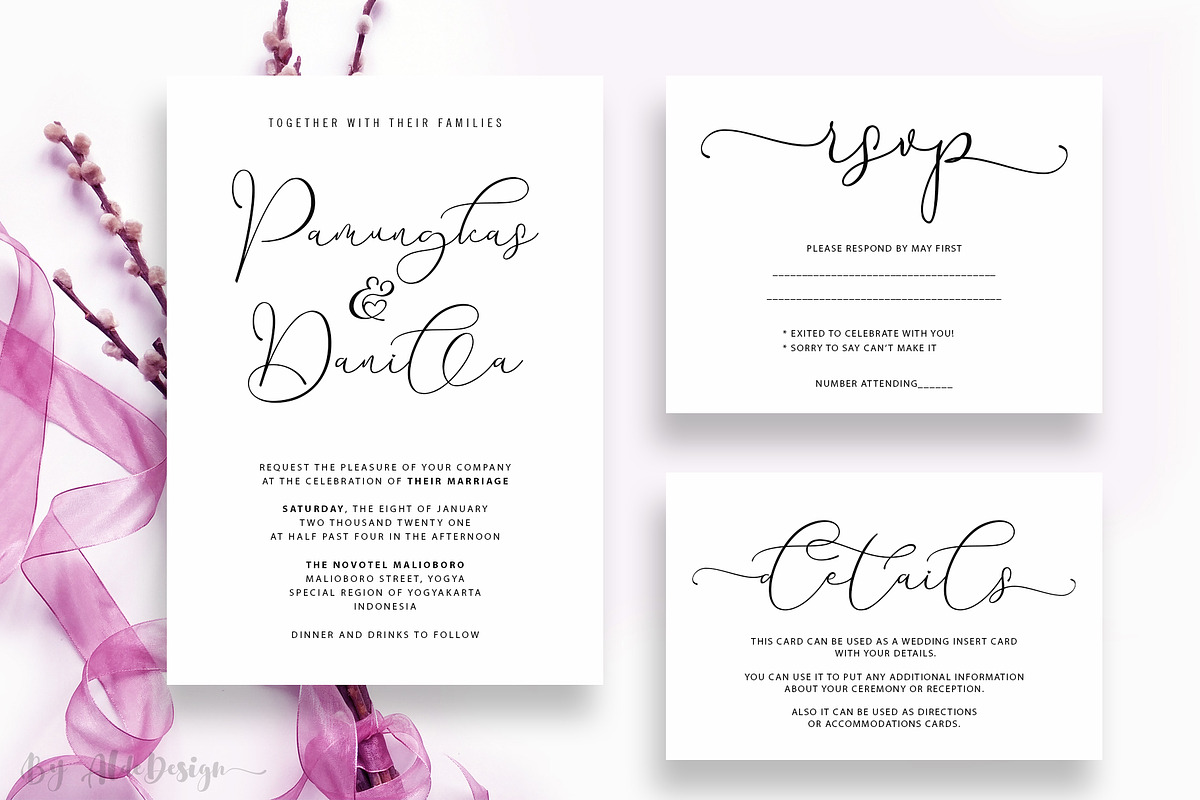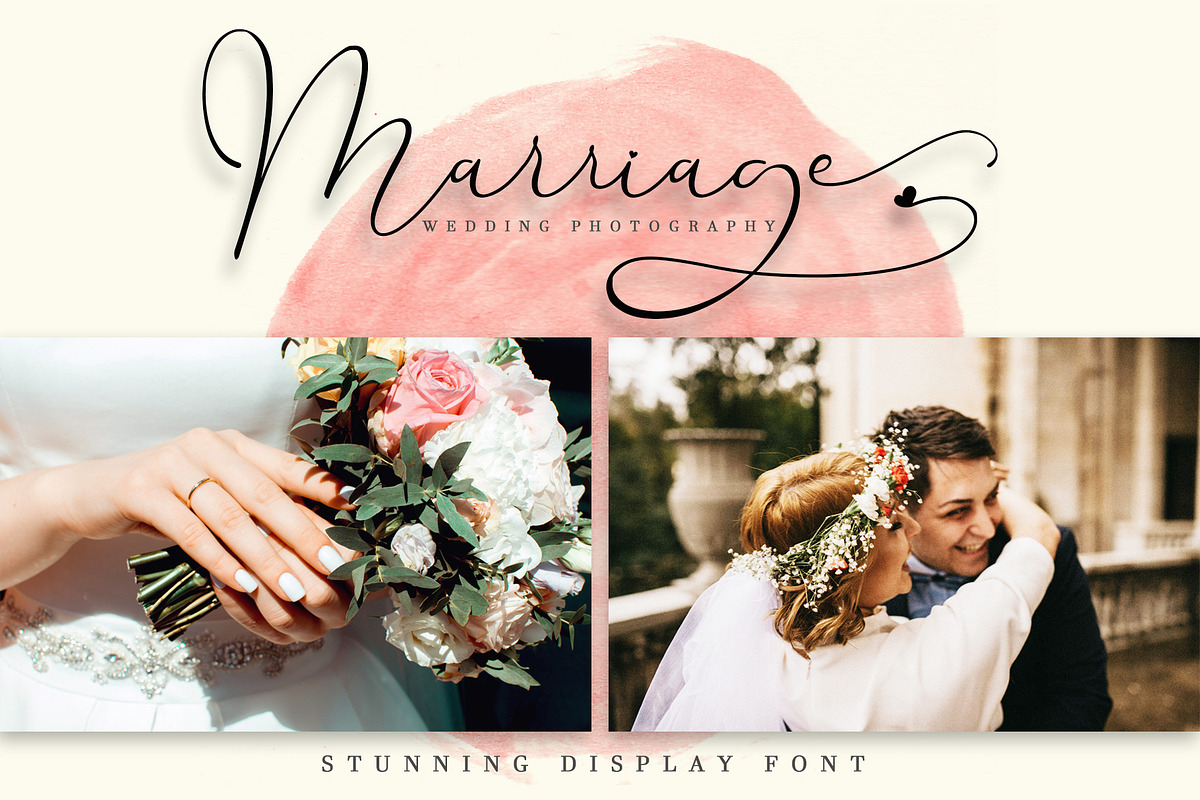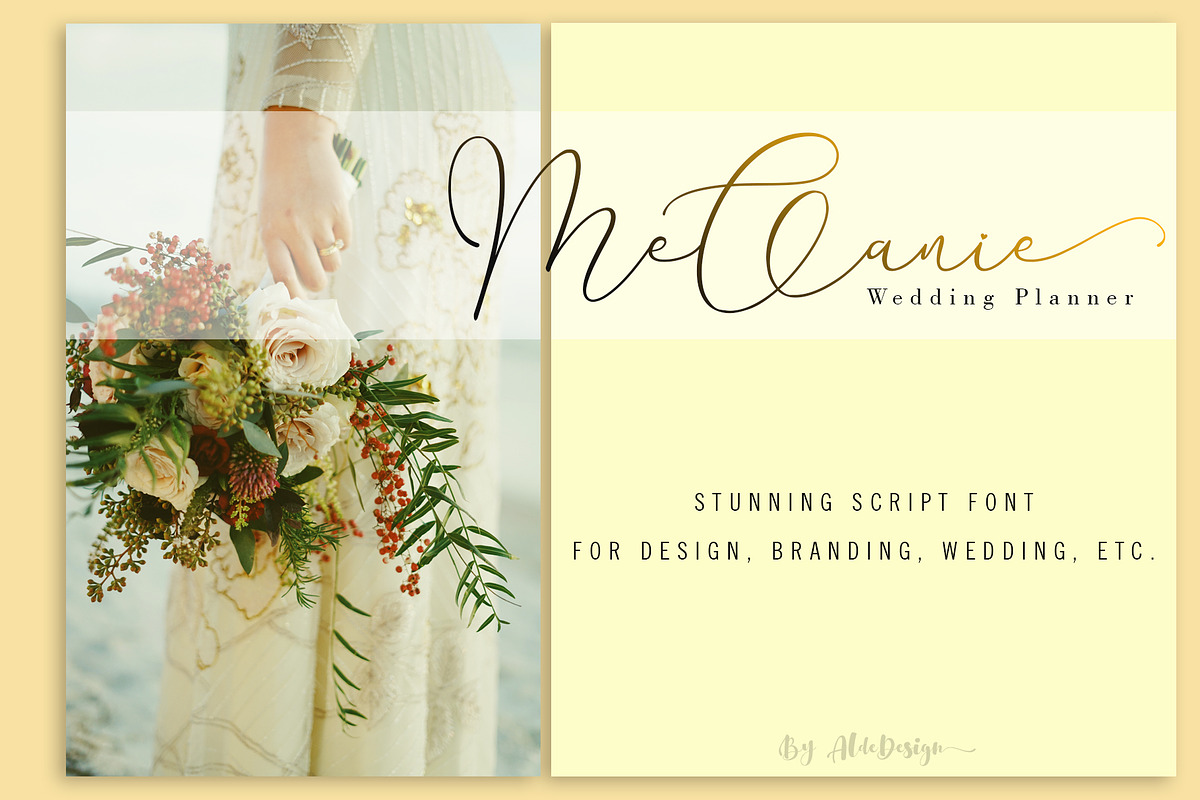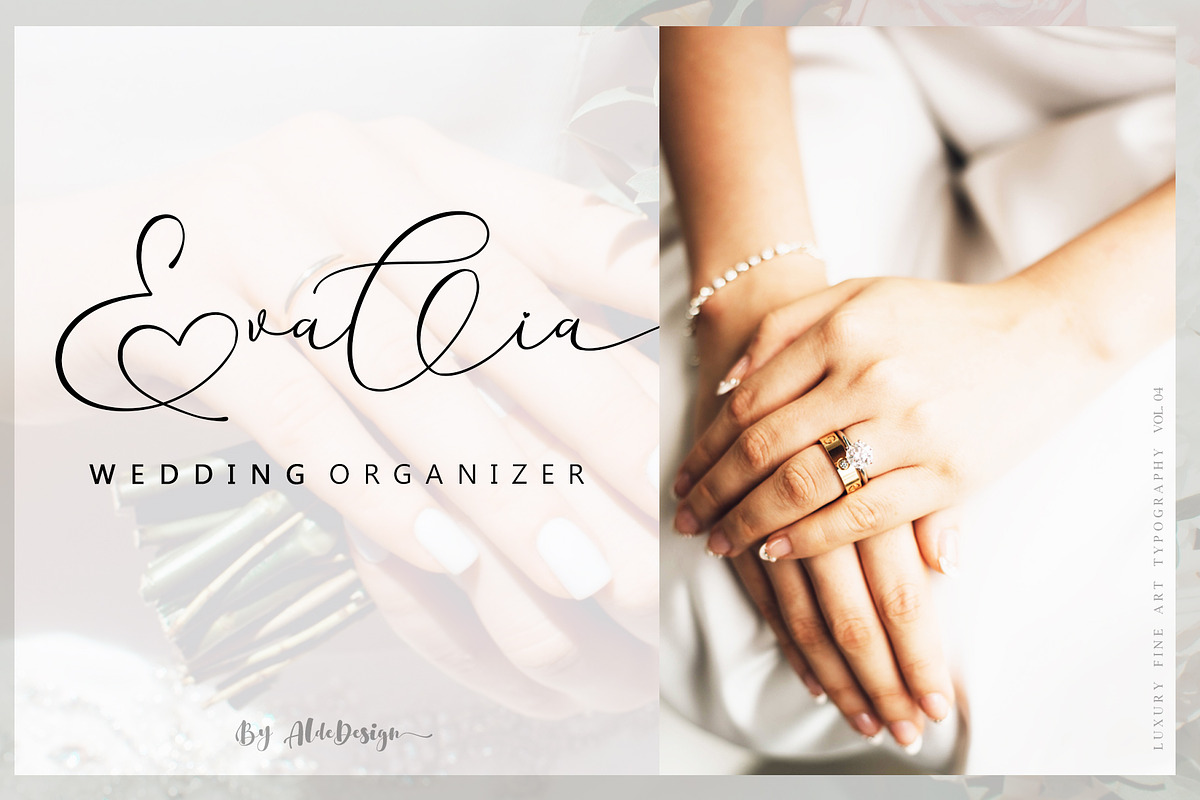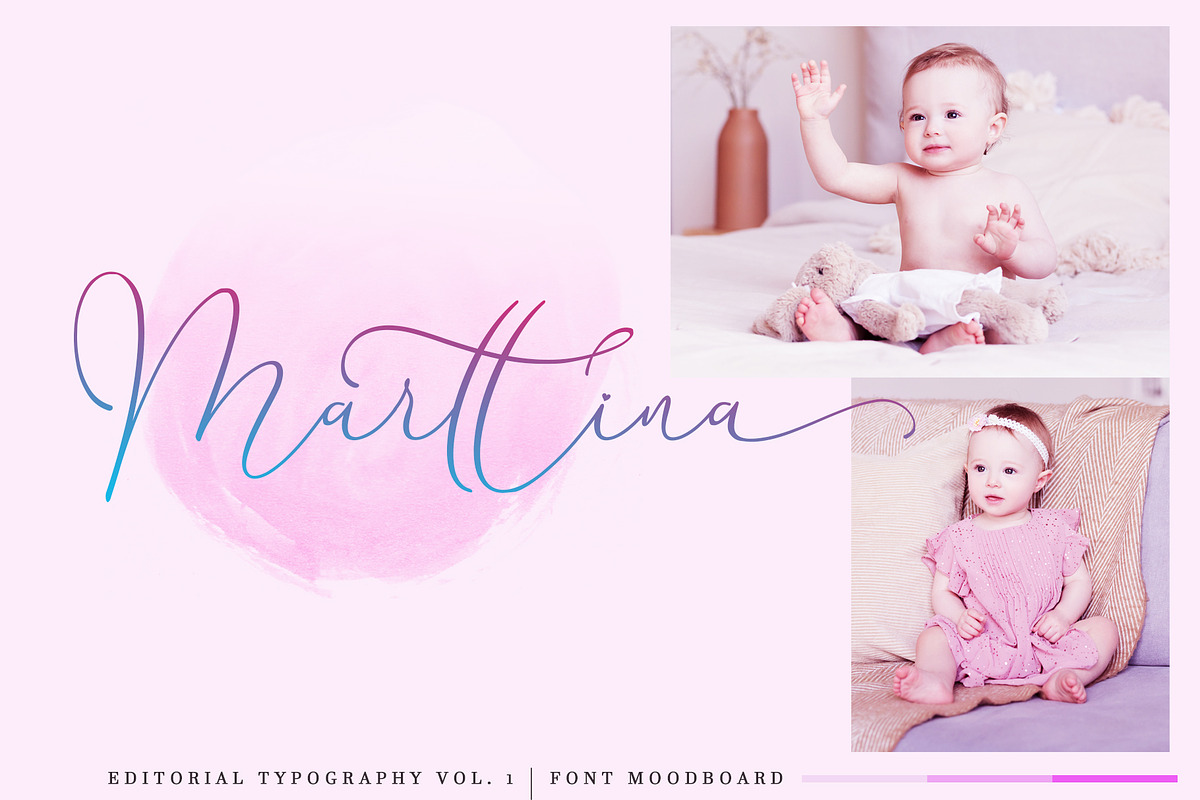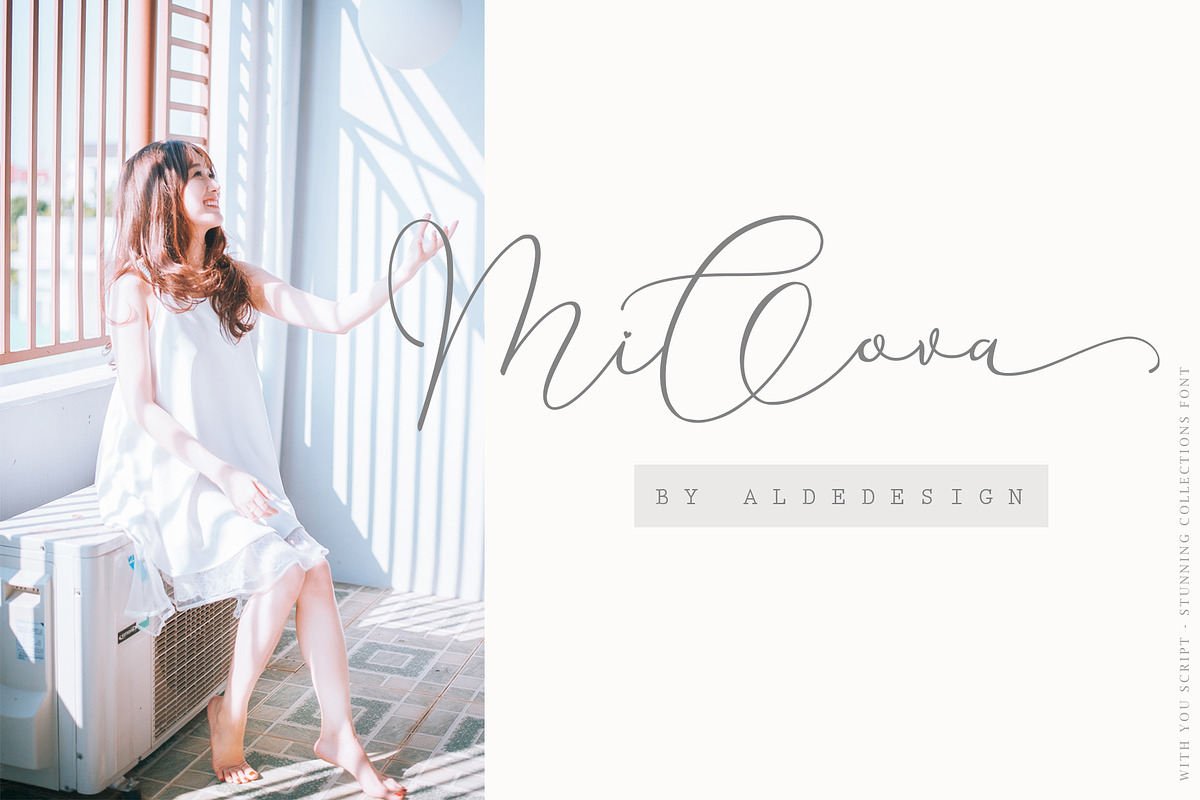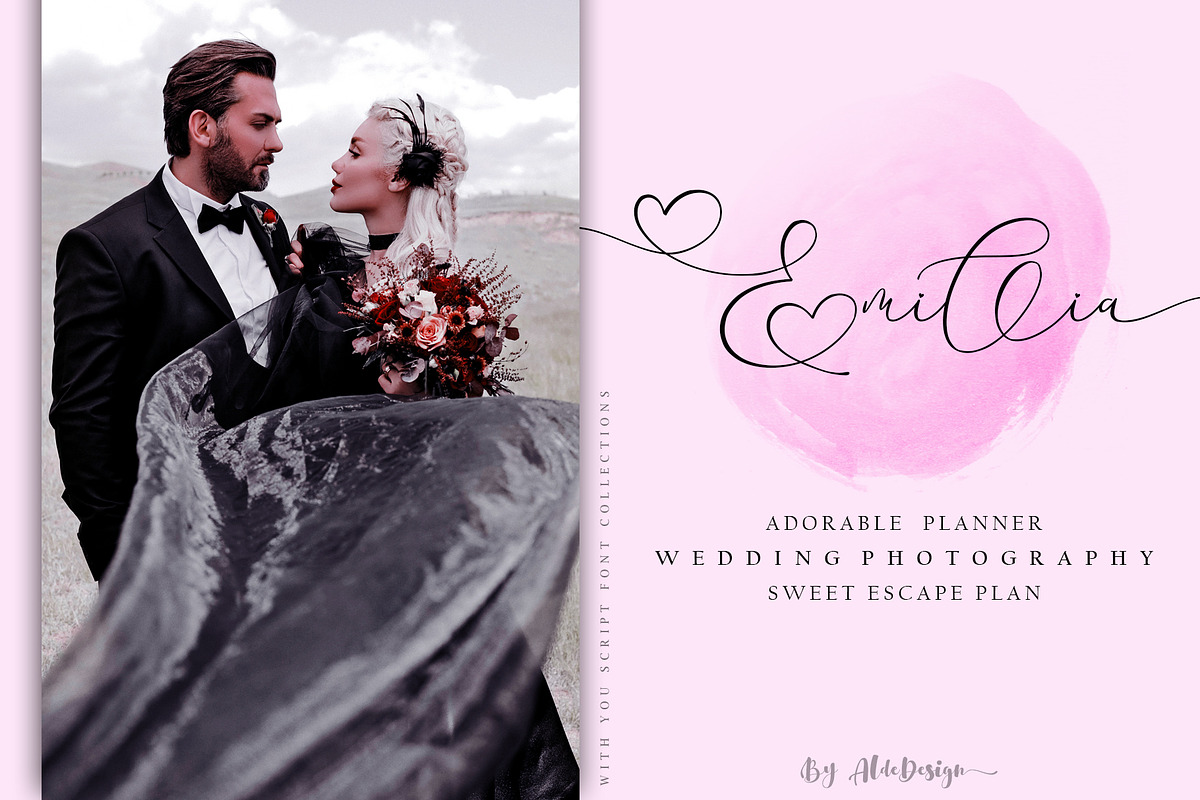
With You // Lovely Script Font
With You // Lovely Script Font is a stylish and lovely font that features a varying baseline, smooth line, modern and with a depth love. For those of you who need a touch of love and modernity for your designs or branding, it can be used for various purposes such as headings, wedding, invitation, signature, logos, branding, t-shirt, letterhead, signage, labels, news, posters, badges, etc.
Just imagine that your customers are women. They love to see something beautiful, elegant, and warm, right? You don’t need to get confused to find an interesting font to attract their attention. We have a special font namely "With You // Lovely Script Font". The font design looks simple without losing its elegance and warmness. The function of the font is to show that you have a modern spirit to serve high-quality products and services. We design this font with Open Type features to give an artistic touch on it. This font is also applicable for numbers, punctuation, and other languages. It is also a multi-functions font where you can use for a business logo, branding, wedding invitation, and anything you want.
- This font is also applicable for numbers, punctuation, and other languages.